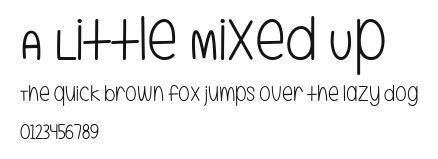
• Font Name: A Little Mixed Up
• Designer: Misti's Fonts (Misti Hammers)
About A Little Mixed Up.ttf
A Little Mixed Up.ttf is a modern, elegant sans-serif font designed for ultimate readability and visual harmony. Perfect for branding, headlines, web design, and print materials.